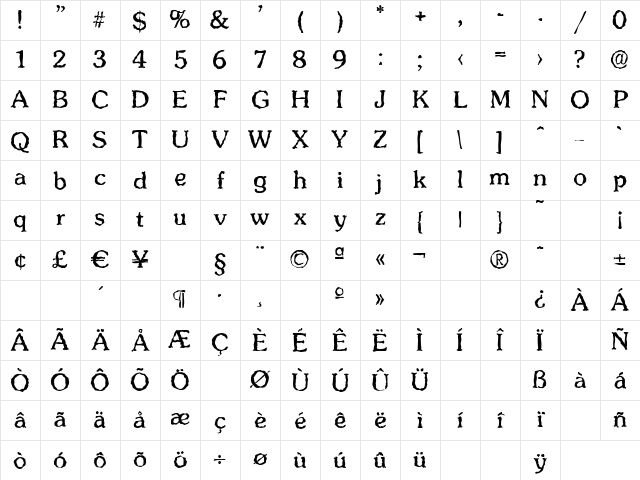
SunsetRandom Regular Free Font
SunsetRandom Regular
SunsetRandom Family
Complete SunsetRandom Regular glyph index. Displaying only characters natively supported by SunsetRandom Regular font.
Design Context for SunsetRandom
SunsetRandom is a composed and adaptable typeface that performs quietly and consistently across a wide range of design contexts.